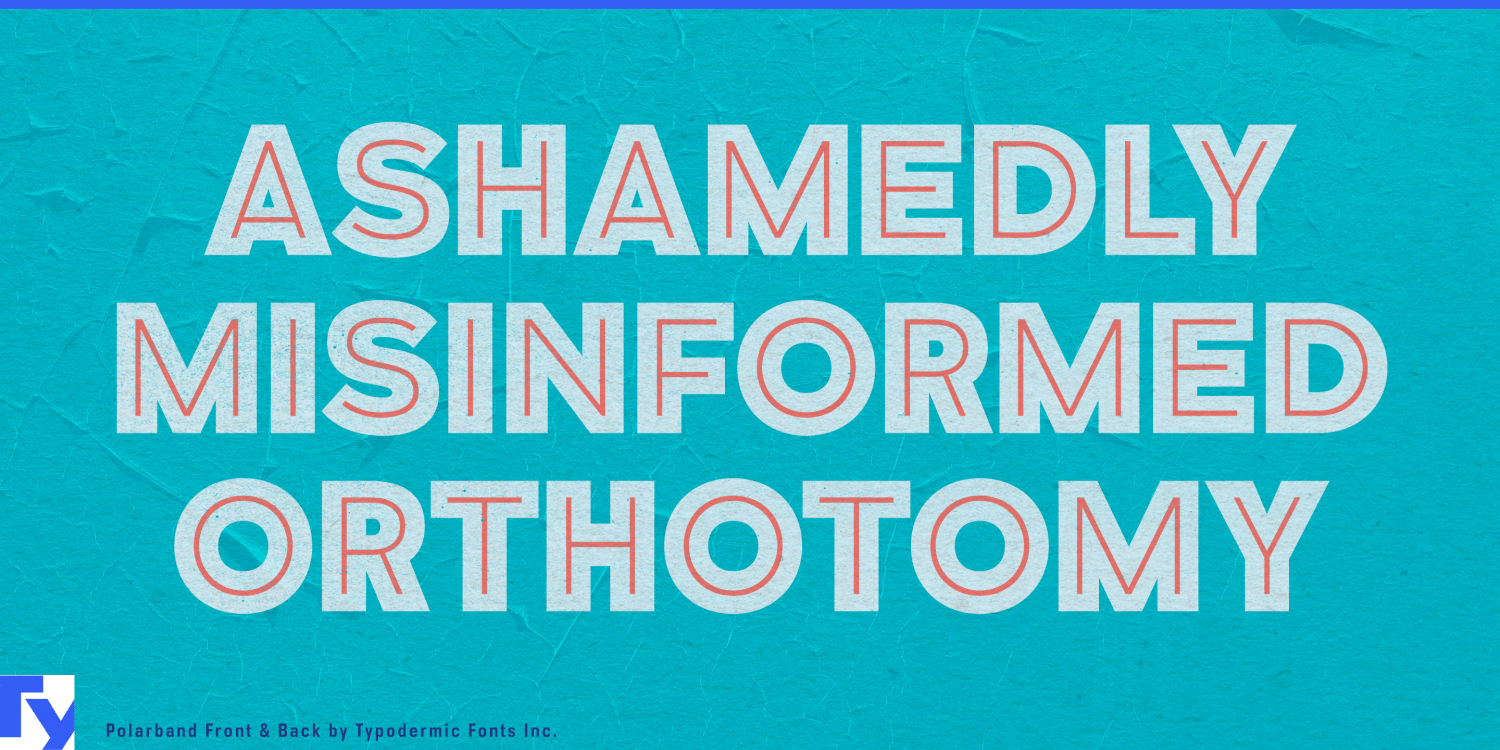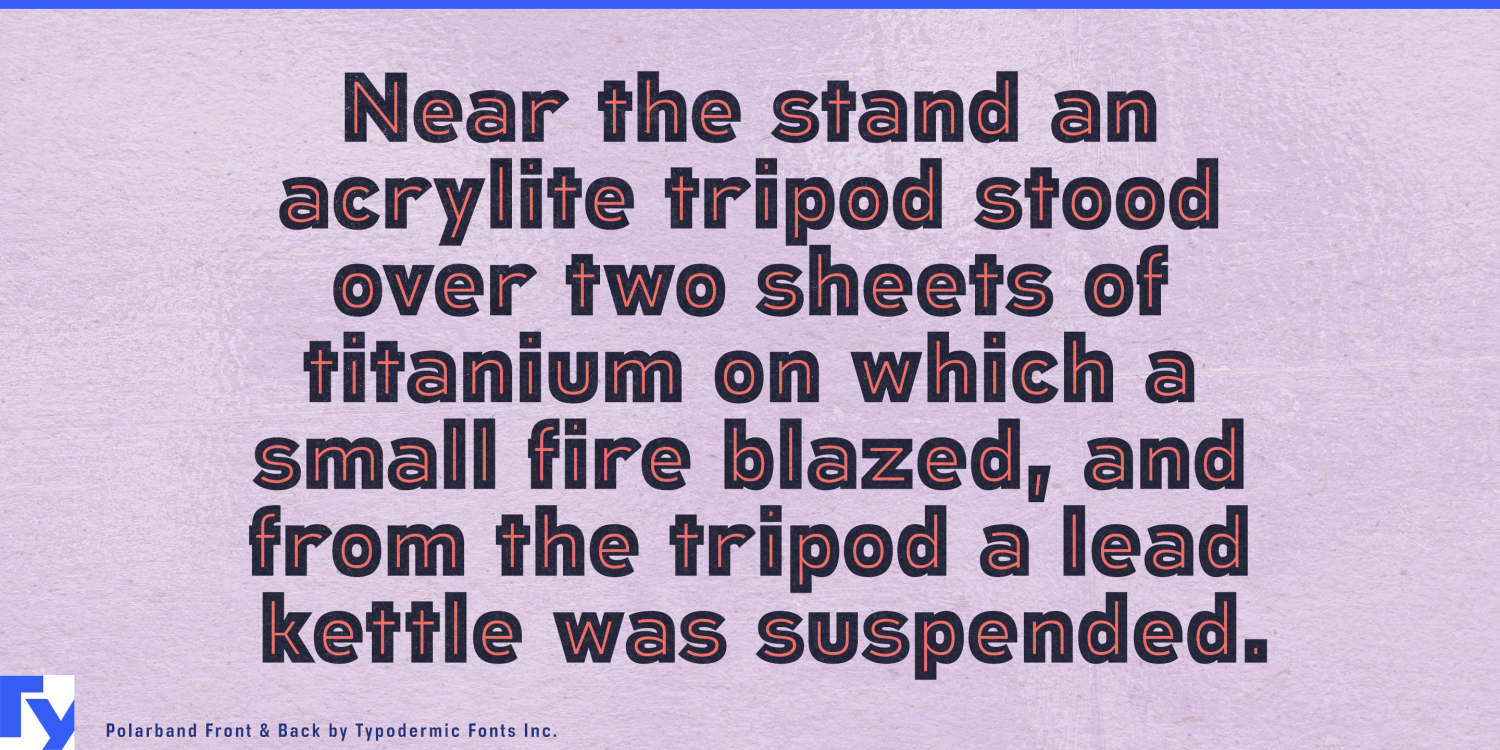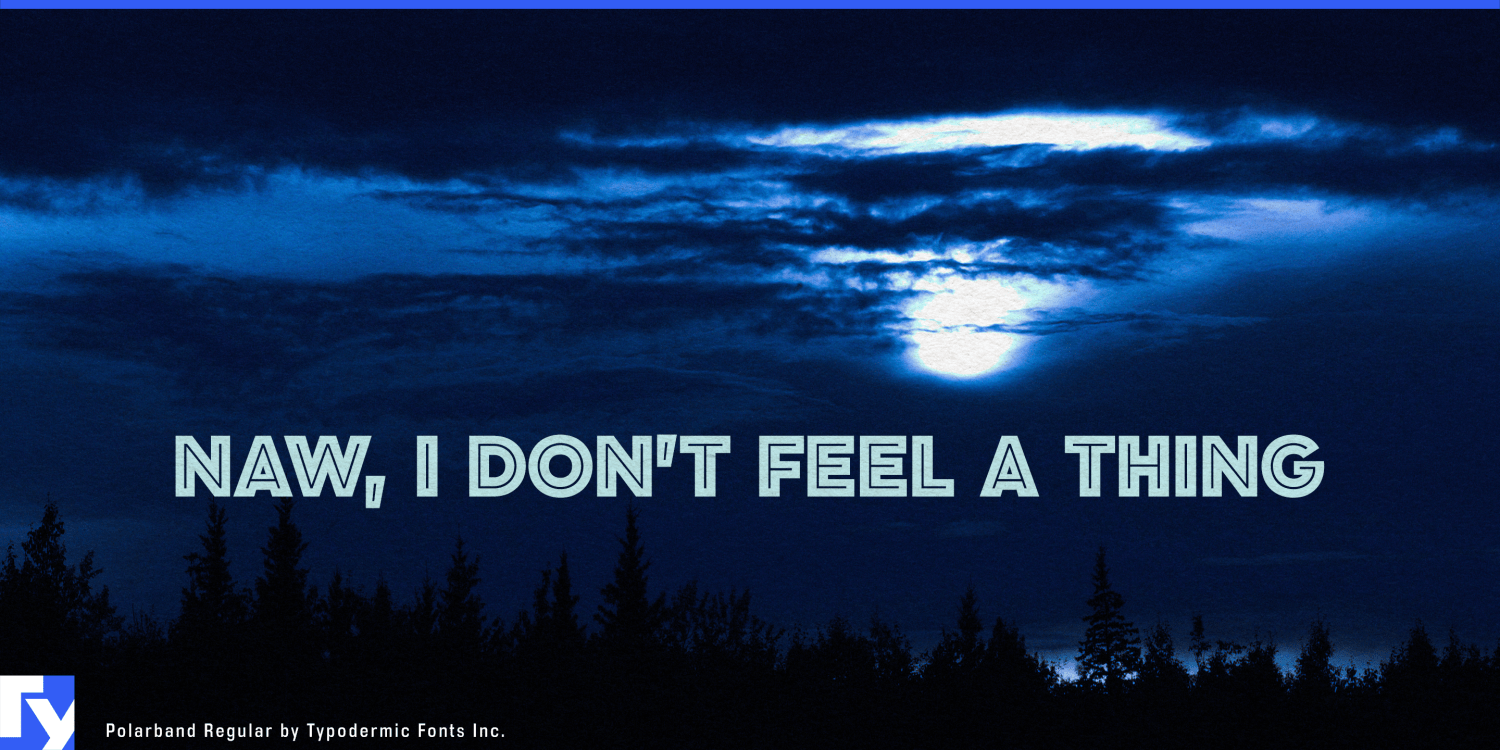
Dive deep into the world of Polarband, a typeface that navigates the icy waters of design with the stealth and precision of a Cold War submarine. This retro-inspired sans-serif doesn’t just communicate—it operates under the radar, delivering…